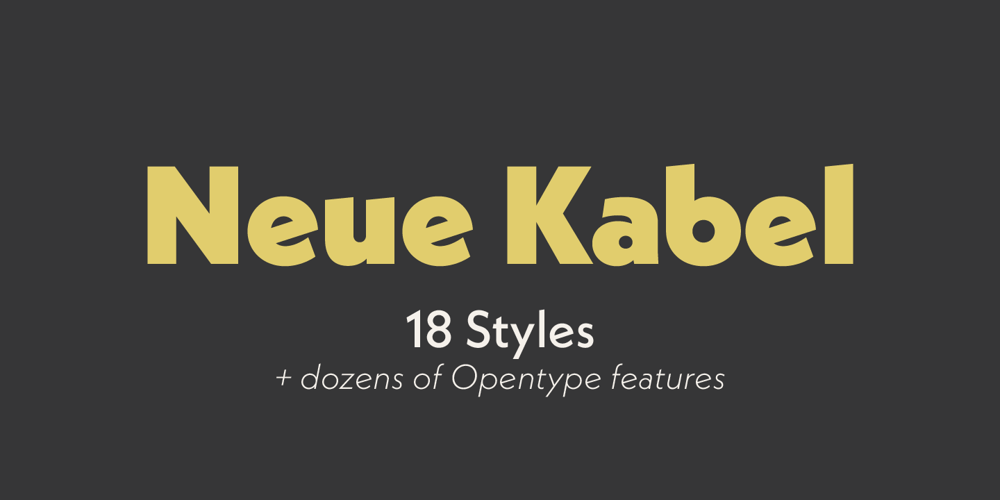
Neue Kabel Font Family was designed by Rudolf Koch, Marc Schütz and published by Linotype. Neue Kabel contains 18 styles and family package options. Marc Schütz, a type design teacher at the University for Art and Design Offenbach, took on the challenge of updating and re-imaging the original Kabel® typeface design. His goal was to create forms that perform well in modern imaging environments while keeping the original Kabel’s character and charm. View the Neue Kabel Video Neue Kabel maintains the spirit of Koch’s design, and adds to this the consistent traits and family structure of a 21st century design. Text copy set in Neue Kabel echoes the elegance and playfulness of Koch’s design, while delivering the versatility to shine in a wide variety of hardcopy and interactive environments.